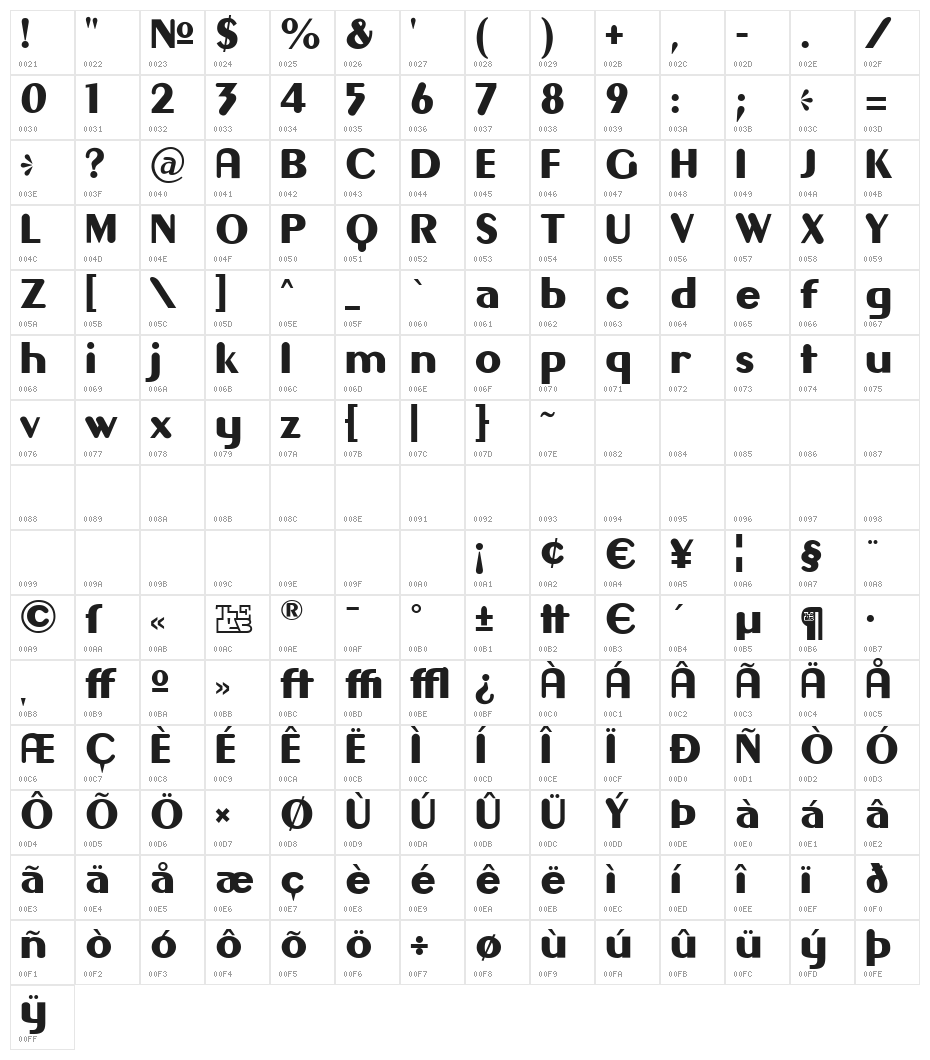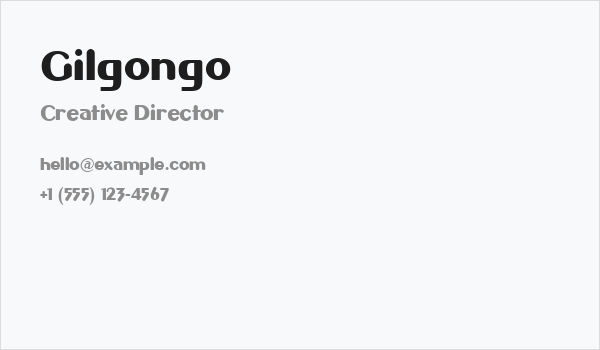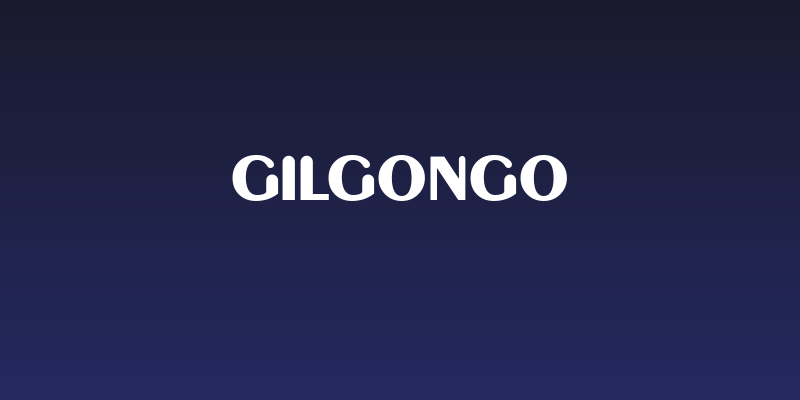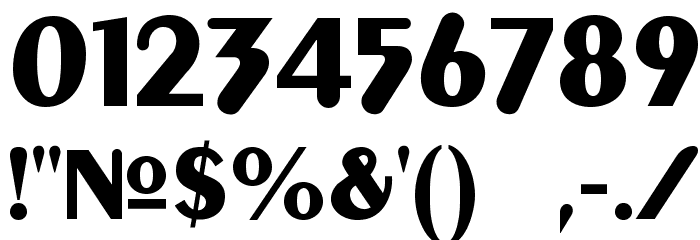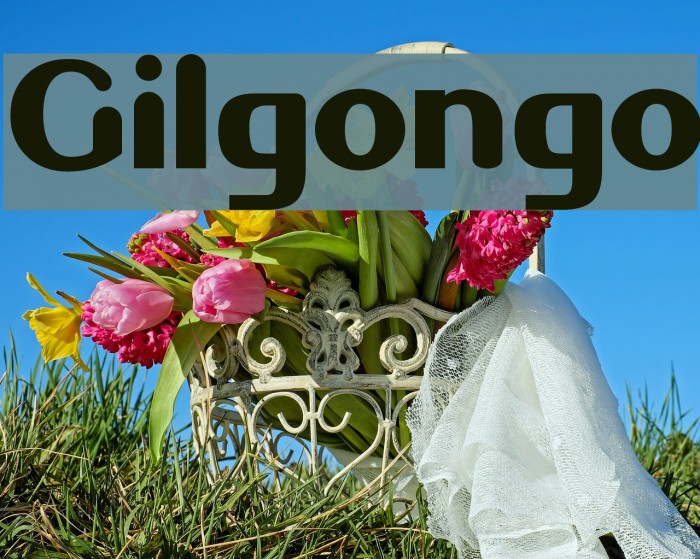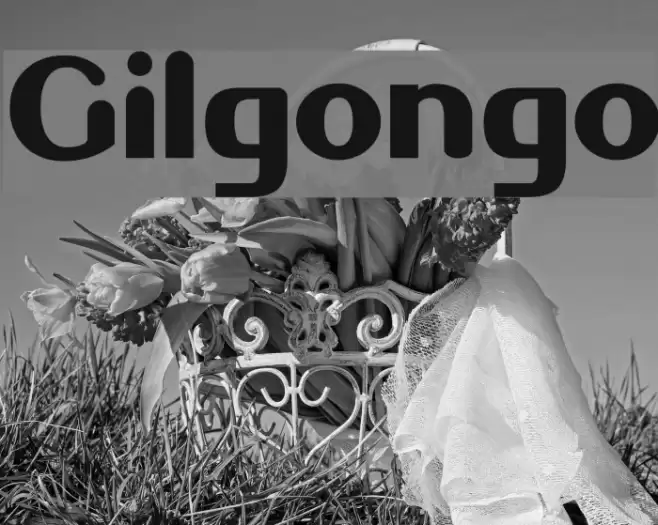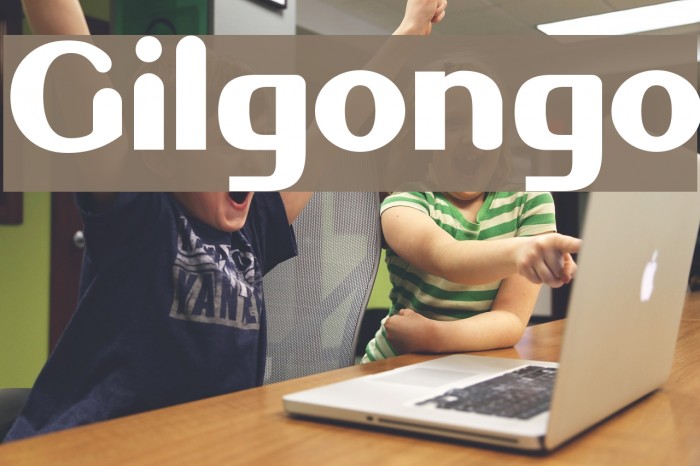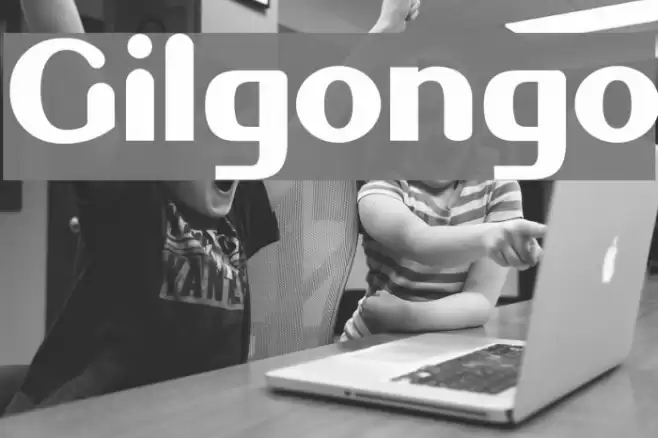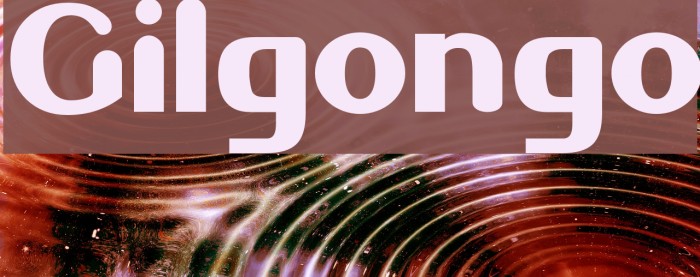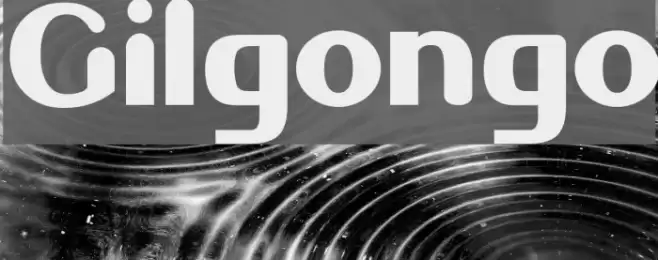
Gilgongo Font
Gilgongo Description
This font features a bold and modern design with smooth, rounded edges and a strong presence. The uppercase letters are uniform in height, while the lowercase letters maintain a consistent baseline, offering a harmonious appearance. The numerals are clear and distinct, ensuring readability. Special characters are well-integrated, matching the overall style. The font's boldness and rounded forms make it suitable for impactful headlines and branding materials, where a contemporary and approachable look is desired.
| Proposed Projects | This font is perfect for modern branding projects, eye-catching headlines, advertising campaigns, and digital media where a strong, contemporary presence is needed. |